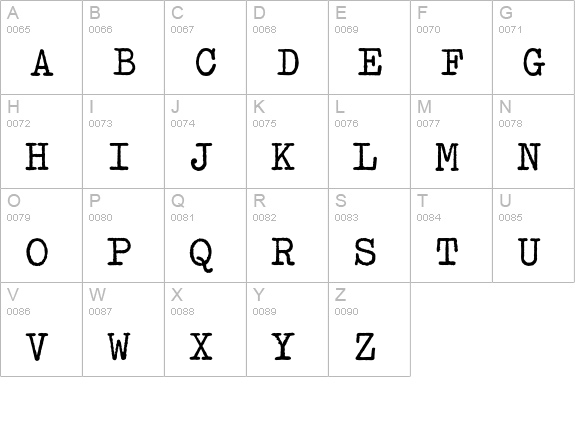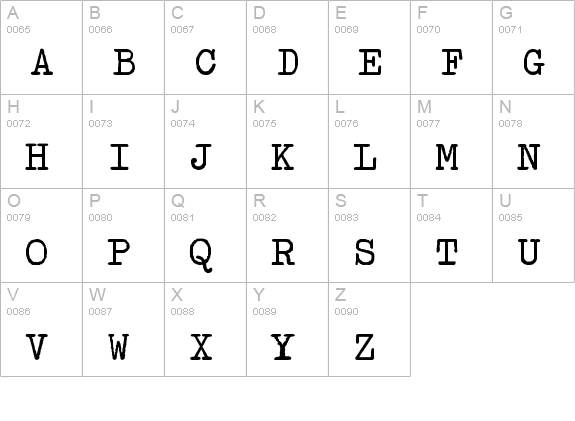
OldTypewriterEF-ExBold Font Details
OldTypewriterEF-ExBold is a classic and vintage-inspired font that exudes a sense of nostalgia and elegance. With its bold and distinctive letterforms, this typeface is perfect for creating eye-catching headlines, posters, and branding materials with a touch of old-world charm. Designed with precision and attention to detail, OldTypewriterEF-ExBold captures the essence of old typewriters, adding a unique and timeless character to any design project. Its sturdy and bold strokes make a strong visual impact, while the subtle imperfections in each letter add a sense of authenticity and warmth. Whether you're looking to add a vintage touch to your designs or evoke a sense of history and tradition, OldTypewriterEF-ExBold is the perfect choice. And the best part? This font is available for free download at FontsMarket.com, making it accessible to all designers and creatives looking to add a touch of nostalgia to their work.